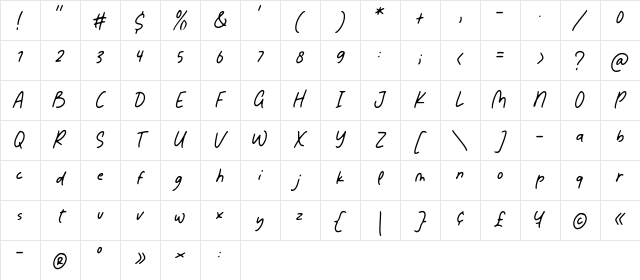
Fabulous Sunday Regular Free Font
Fabulous Sunday Regular
Designer: Balpirick Studio
Design Context for Fabulous Sunday
Fabulous Sunday is a composed and adaptable typeface that performs quietly and consistently across a wide range of design contexts.